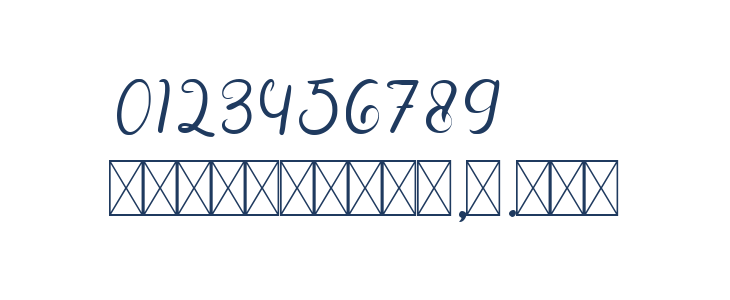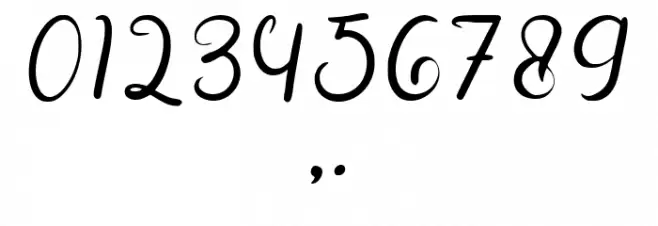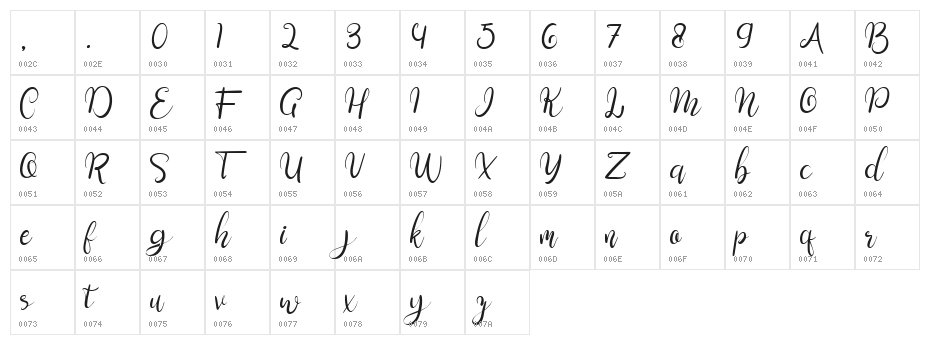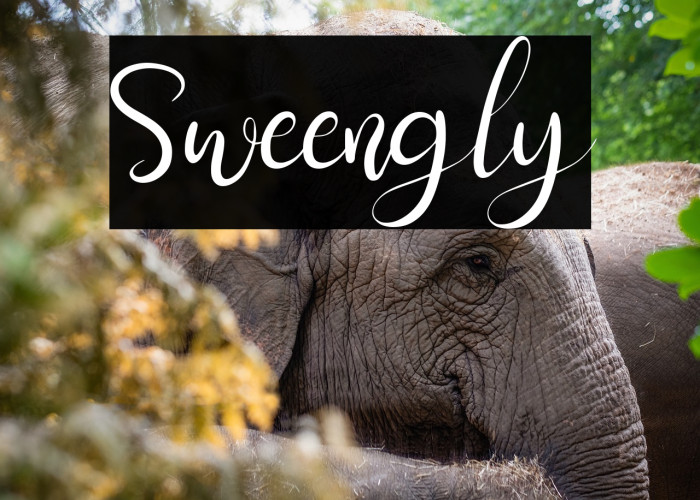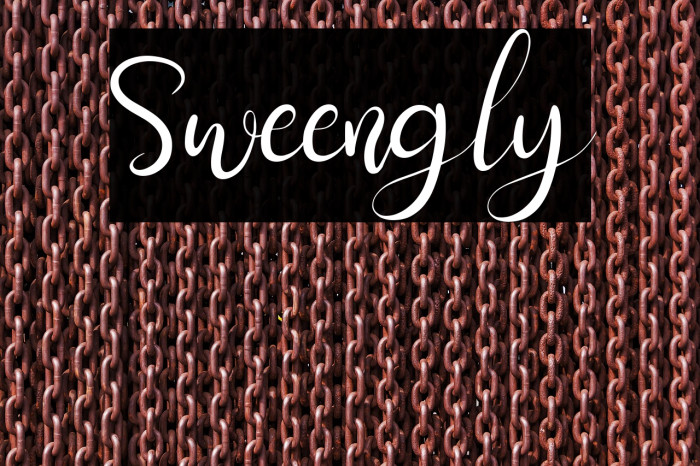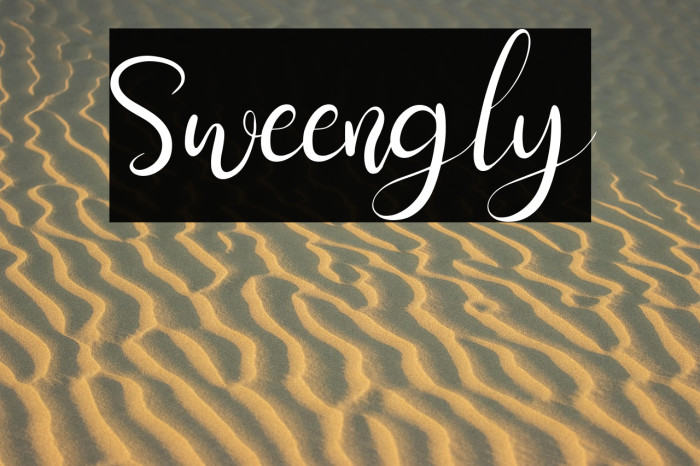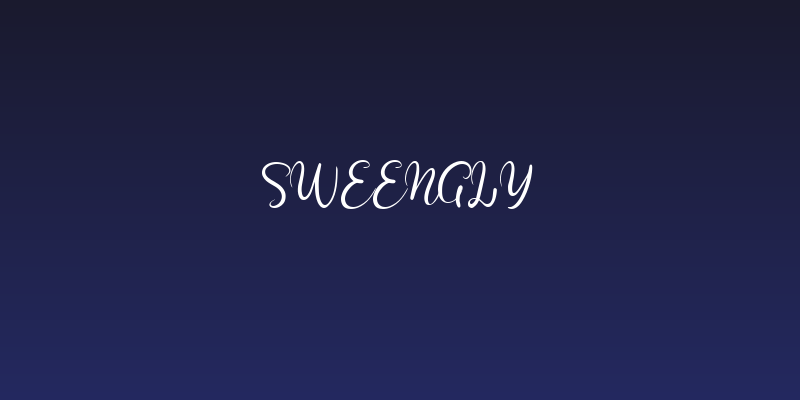
Sweengly Font
Sweengly Description
This elegant script font features flowing, cursive letters with a modern flair. The uppercase characters are bold and sweeping, with a graceful, looping style that adds a touch of sophistication. The lowercase letters maintain a consistent fluidity, with some characters extending below the baseline, adding to the font's dynamic appearance. The numerals are equally stylish, maintaining the same cursive quality as the letters. This font is perfect for projects that require a personal, handwritten touch, while still maintaining a sense of elegance and class.
| Proposed Projects | Ideal for wedding invitations, greeting cards, branding, and elegant logos. |